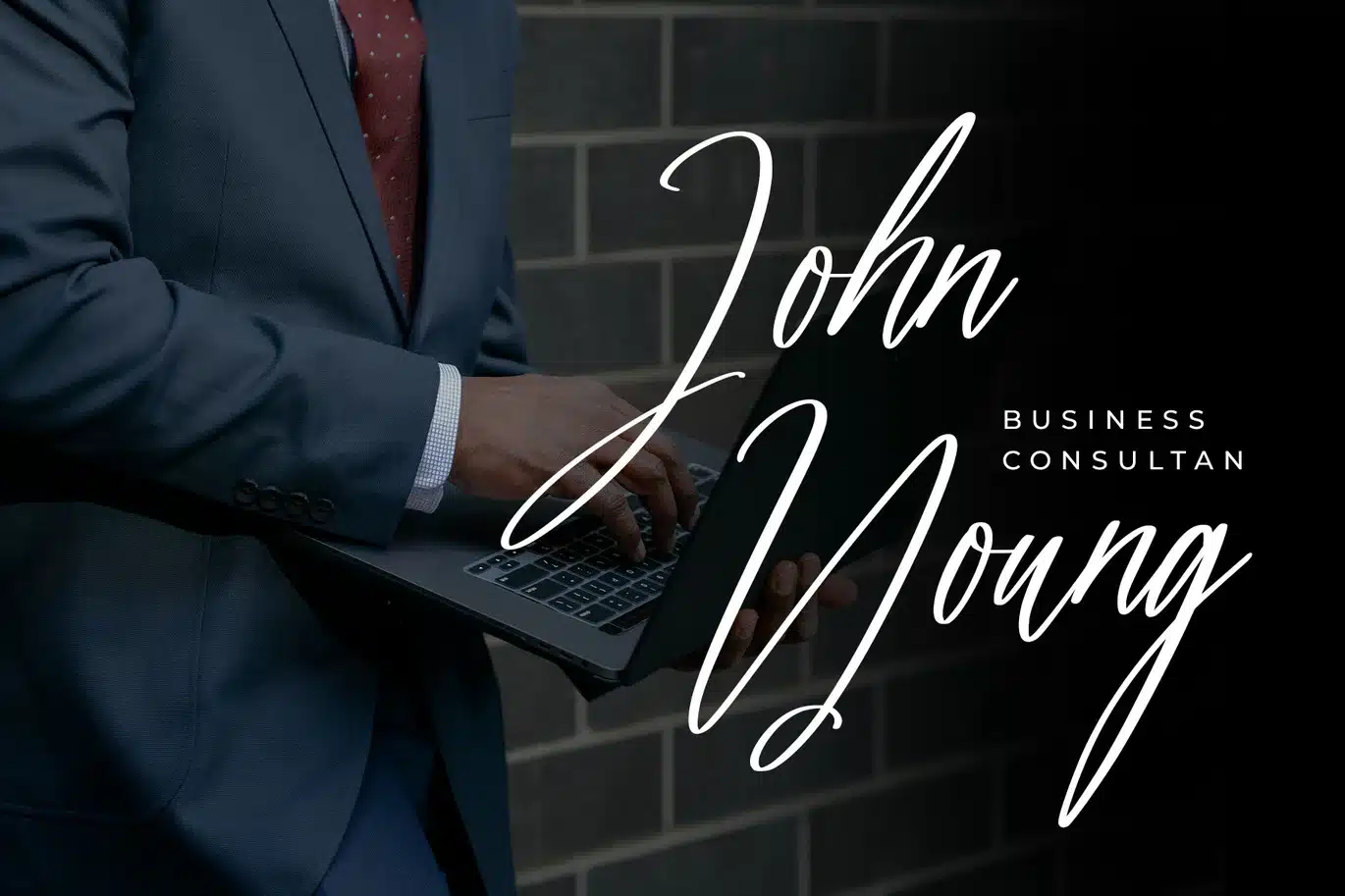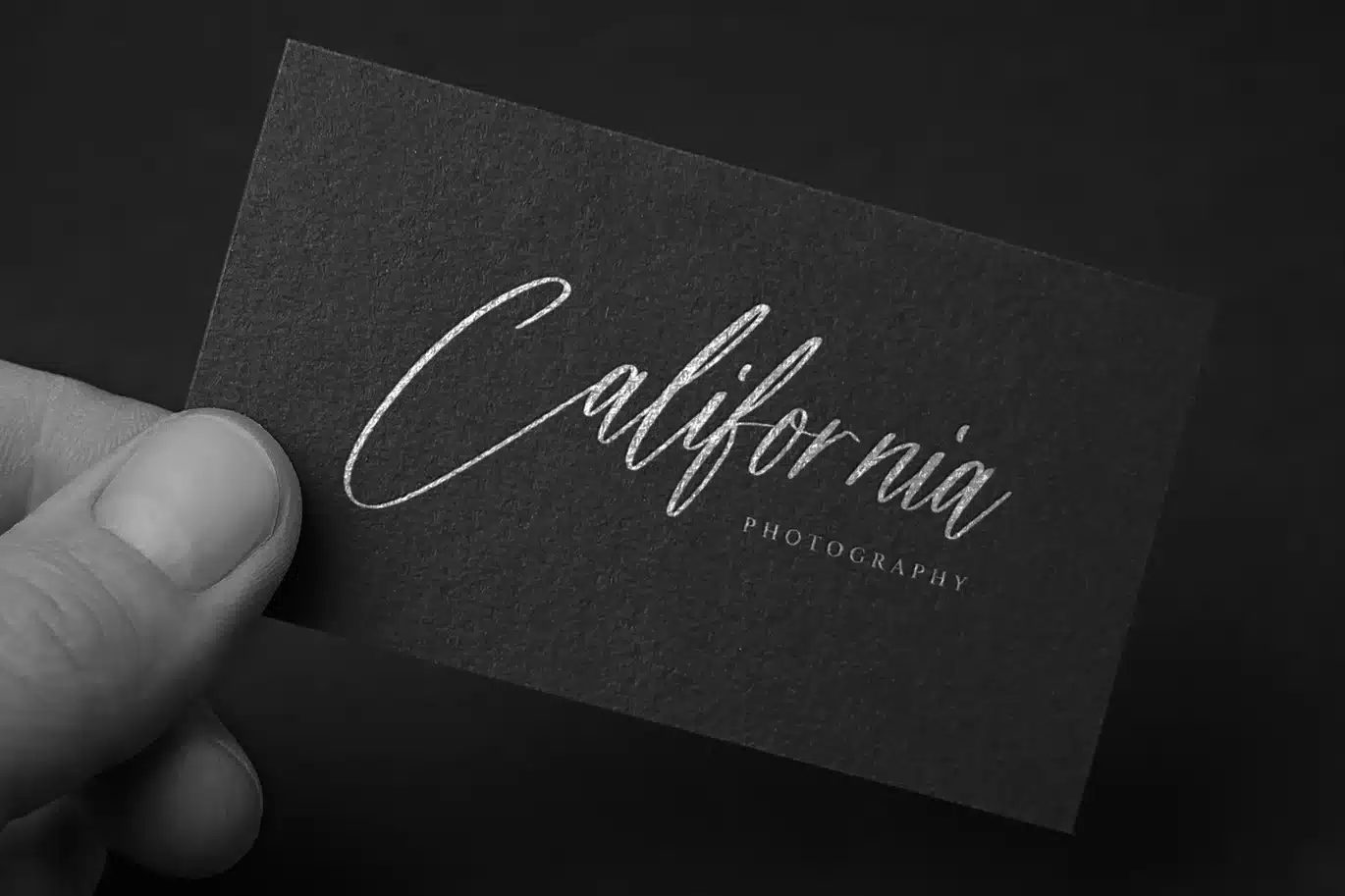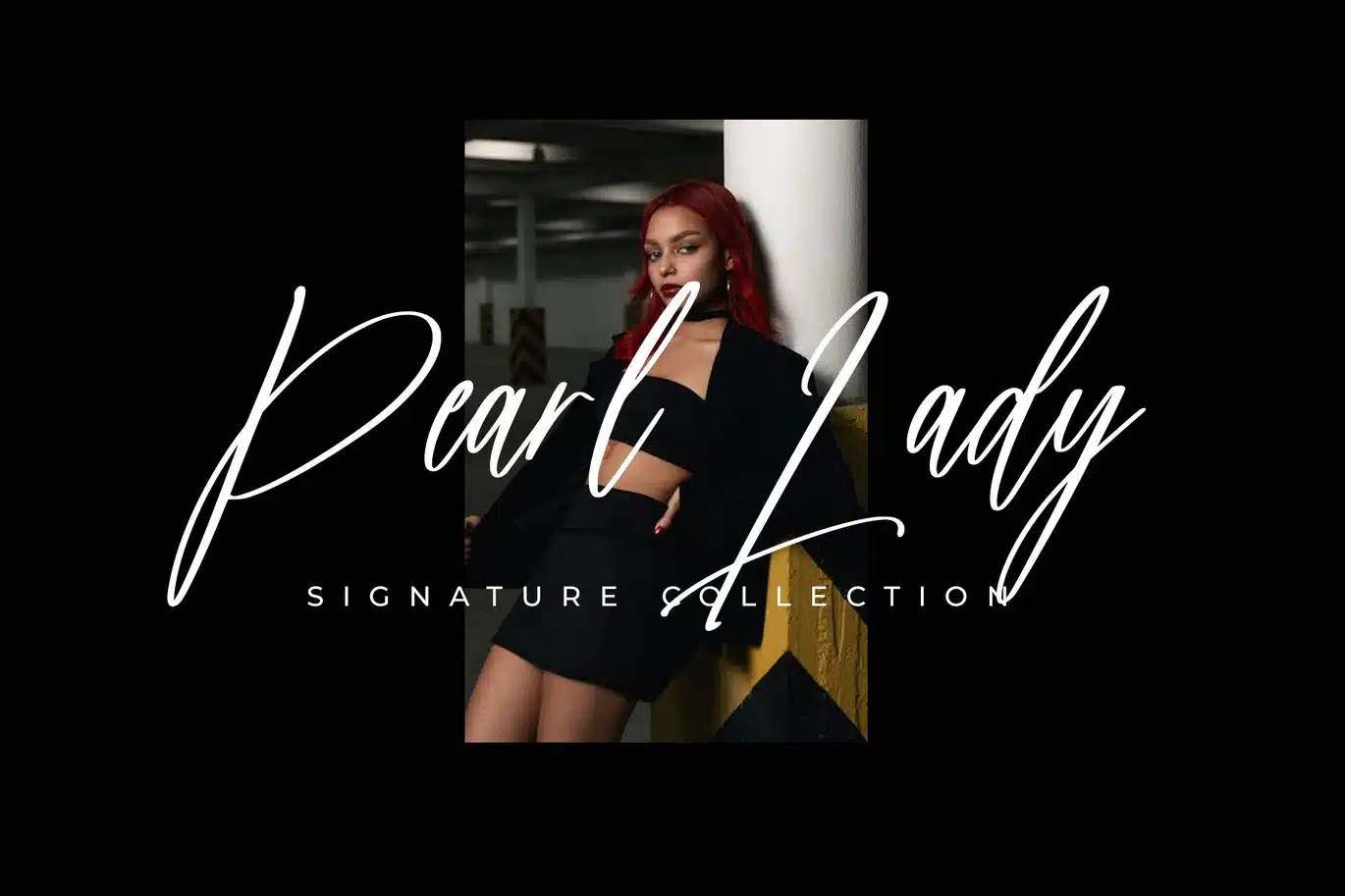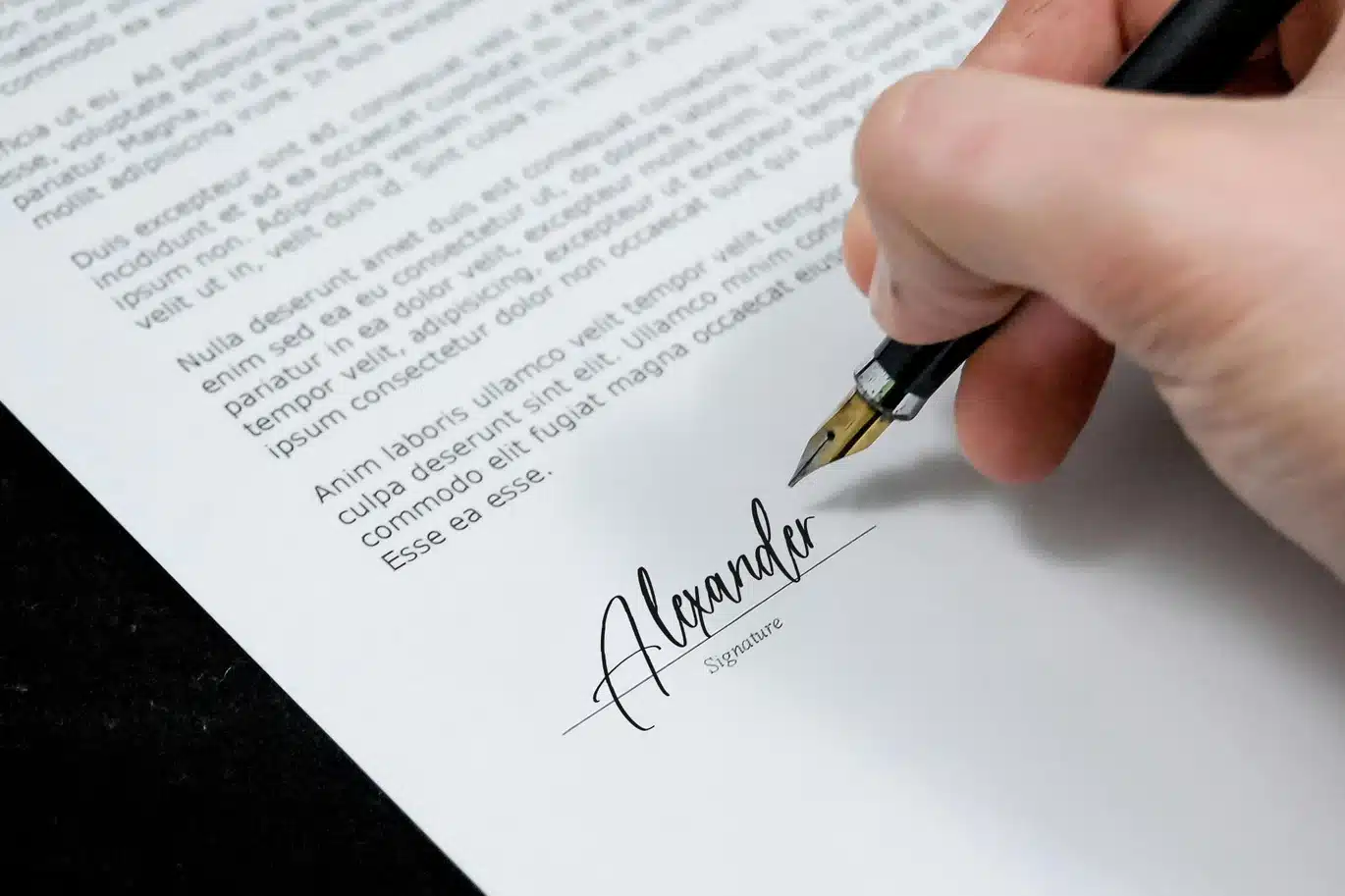
Katerdia Stylish Signature Font
Katerdia is stylish signature font made by rantautype studio. Katerdia is a perfectly choice for any creative endeavor, creating, modern, lifestyle design such as logotype, title, cover, branding, invitations, wedding designs, display and magazine, social media posts, advertisements, printed quotes, product packaging, corporate brand, product designs, labels, photography, watermarks, special events and any other project with modern touch.